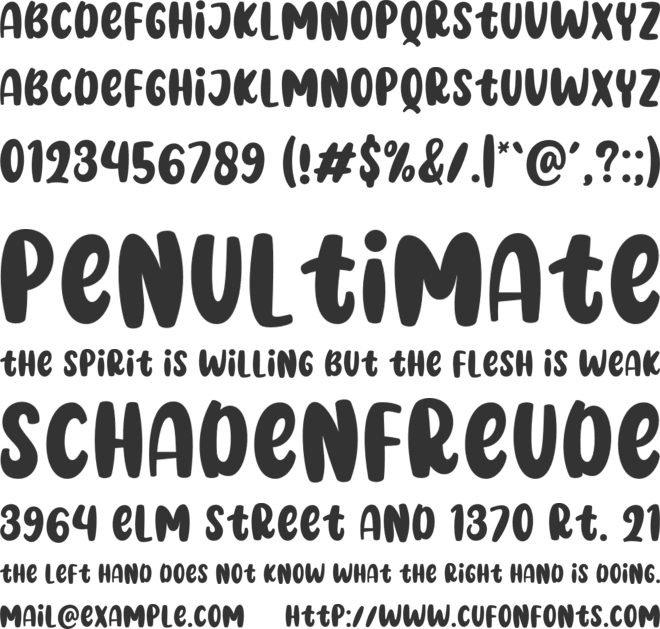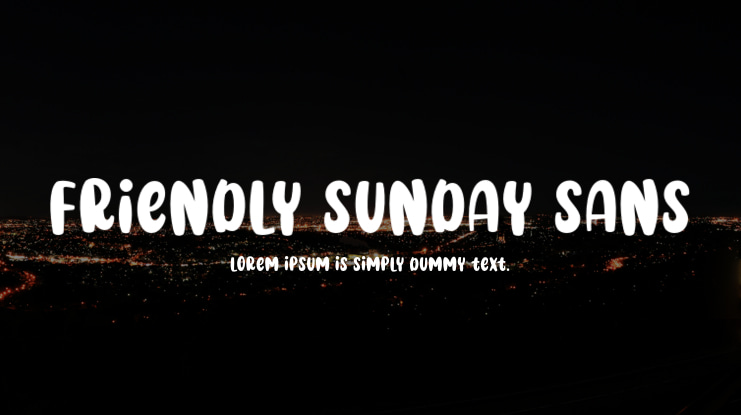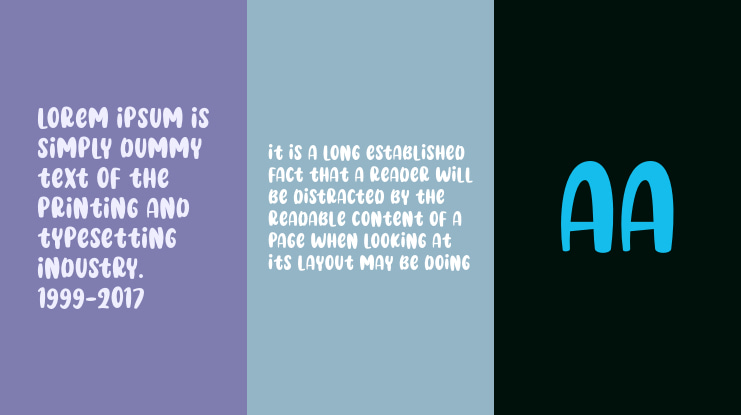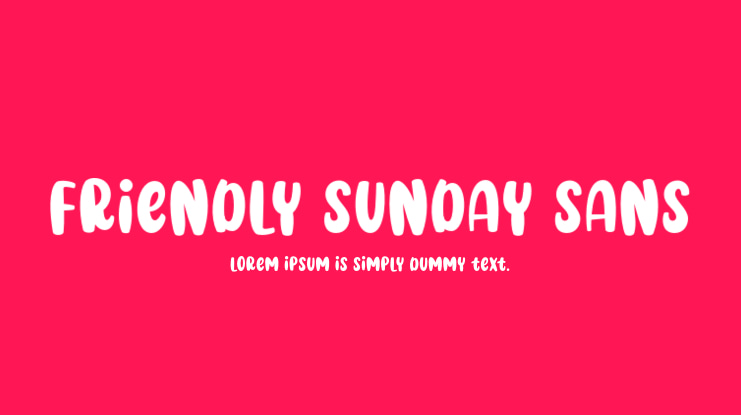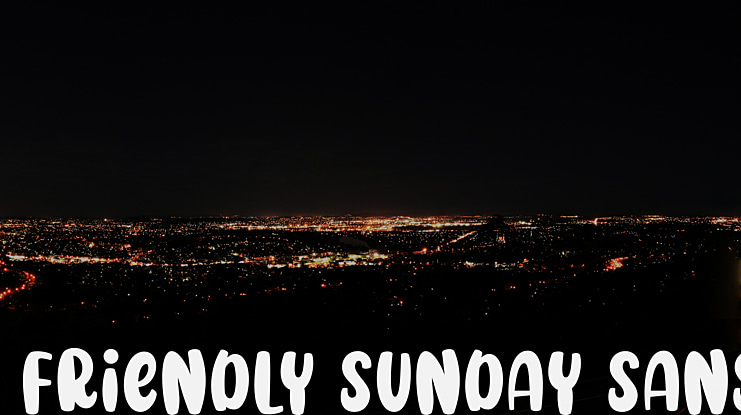
Friendly Sunday Sans Font
Friendly Sunday is a delicate, elegant, and unique font duo (script and sans serif). It has beautiful and well-balanced characters and as a result, it matches a wide pool of designs. Have fun with this beautiful font and explore its endless variations.